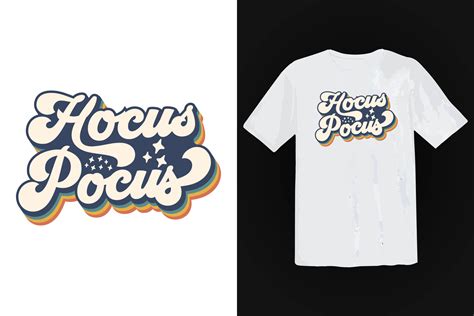
Creating a standout T-shirt design often hinges on the perfect combination of visual elements and typography. T-shirt fonts play a crucial role in conveying the message, setting the tone, and making the design memorable. Whether you're designing for a brand, a special event, or personal expression, choosing the right font can significantly impact the overall appeal of your T-shirt. This guide will walk you through the essentials of selecting and using T-shirt fonts to create eye-catching and effective designs.
Understanding the Importance of T-Shirt Fonts
Typography is a powerful tool in graphic design, and it becomes even more critical when it comes to T-shirt fonts. The font you choose can influence how the message is perceived, making it essential to select a font that aligns with the intended mood and message. Here are some key points to consider:
- Readability: Ensure the font is easy to read from a distance. Complex or overly stylized fonts might look great up close but can be hard to decipher when worn.
- Style and Tone: Different fonts evoke different emotions. For example, a bold, sans-serif font might convey strength and modernity, while a script font can add a touch of elegance or playfulness.
- Brand Consistency: If you're designing for a brand, it's crucial to use fonts that align with the brand's identity. Consistency in typography helps in building brand recognition.
- Audience Appeal: Consider who will be wearing the T-shirt. Different demographics might respond better to specific styles of T-shirt fonts.
Types of T-Shirt Fonts
There are numerous types of fonts, each with its unique characteristics. Understanding the different categories can help you make an informed decision. Here are some popular types of T-shirt fonts:
- Sans-Serif Fonts: These fonts lack the small projecting features called "serifs" at the end of strokes. They are modern, clean, and highly readable, making them a popular choice for T-shirt fonts. Examples include Arial, Helvetica, and Futura.
- Serif Fonts: Serif fonts have small lines or strokes regularly attached to the end of a larger stroke in a letter or symbol within a particular font. They are often associated with tradition and formality. Examples include Times New Roman and Garamond.
- Script Fonts: These fonts mimic cursive handwriting and are often used to convey elegance or playfulness. They can be challenging to read at smaller sizes but work well for larger, bold statements. Examples include Brush Script and Pacifico.
- Display Fonts: Display fonts are designed to be used at large sizes and are often highly stylized. They are perfect for making a bold statement but may not be suitable for long passages of text. Examples include Impact and Lobster.
- Monospaced Fonts: These fonts have equal spacing between all characters, giving them a typewriter-like appearance. They are often used for coding or technical contexts but can add a retro or techy feel to a T-shirt design. Examples include Courier and Consolas.
Choosing the Right T-Shirt Fonts
Selecting the right T-shirt fonts involves considering several factors. Here are some steps to guide you through the process:
- Define the Purpose: Understand the message you want to convey. Is it a motivational quote, a brand logo, or a humorous statement? The purpose will guide your font choice.
- Consider the Audience: Think about who will be wearing the T-shirt. Different age groups and demographics might respond better to specific styles of T-shirt fonts.
- Match the Tone: Ensure the font aligns with the tone of the message. For example, a playful message might benefit from a whimsical script font, while a serious message might require a bold, sans-serif font.
- Check Readability: Test the font at different sizes to ensure it remains readable. Complex or overly stylized fonts might look great up close but can be hard to decipher when worn.
- Test for Versatility: If the T-shirt design will be used in various contexts (e.g., different backgrounds, lighting conditions), ensure the font remains legible and visually appealing in all scenarios.
📝 Note: Always preview your design in different sizes and on different backgrounds to ensure the T-shirt fonts remain clear and impactful.
Popular T-Shirt Fonts
Here are some popular T-shirt fonts that are widely used and loved by designers:
| Font Name | Type | Best For |
|---|---|---|
| Arial | Sans-Serif | Modern, clean designs |
| Helvetica | Sans-Serif | Versatile, professional use |
| Times New Roman | Serif | Traditional, formal designs |
| Brush Script | Elegant, playful messages |
| Impact | Display | Bold statements, memes |
| Courier | Monospaced | Retro, techy feel |
Designing with T-Shirt Fonts
Once you've chosen the perfect T-shirt fonts, it's time to design. Here are some tips to help you create a stunning T-shirt design:
- Keep It Simple: Avoid overcrowding the design with too much text or too many fonts. Simplicity often makes a stronger impact.